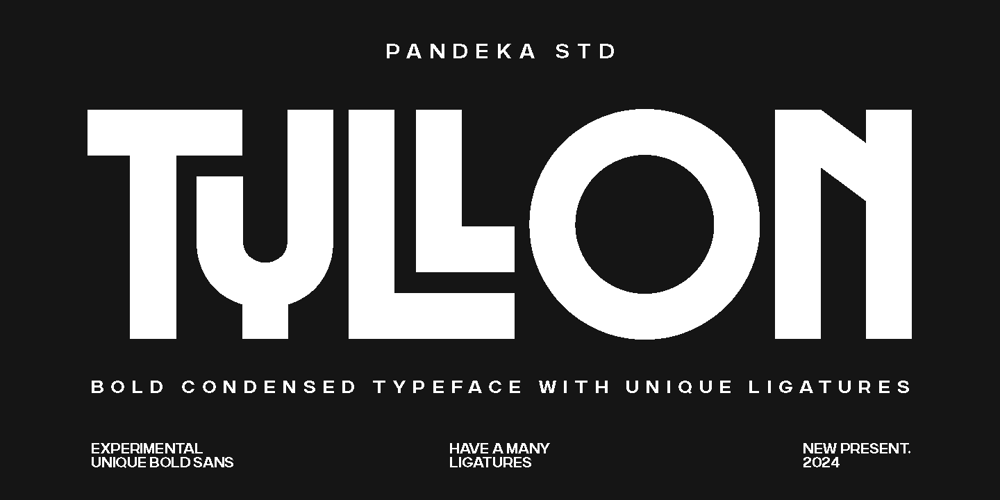
Tyllon
Tyllon font
Tyllon Font Family was designed by Sagara Nararya and published by Pandeka Studio. Tyllon contains 1 styles and family package options. Tyllon is chunky strokes, sharp angles, and a commanding presence that demands to be seen. It’s got that modern, urban edge that works perfectly for cutting-edge branding, attention-grabbing headlines, and impactful social media graphics.Tyllon have many ligatures that make your designs to the next level :DFeatures: Tyllon Main FIles Many Ligatures Instructions (Access special characters in all apps, even in Cricut Design) Accessible in Adobe Illustrator, Adobe Photoshop, Microsoft Word even Canva! PUA Encoded Characters. Fully accessible without additional design software Language Support: Danish, English, Estonian, Filipino, Finnish, French, Friulian, Galician, German, Gusii, Indonesian, Irish, Italian, Luxembourgish, Norwegian Bokmål, Norwegian Nynorsk, Nyankole, Oromo, Portuguese, Romansh, Rombo, Spanish, Swedish, Swiss-German, Uzbek (Latin)Feel free to follow, like and share. Thanks so much for checking out my shop!Have a great day!Pandeka Studio